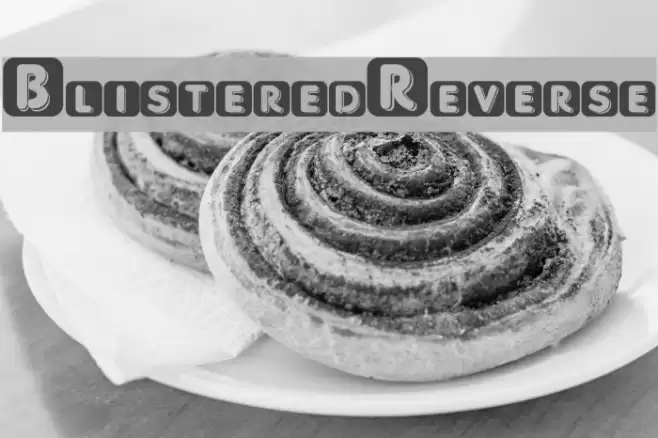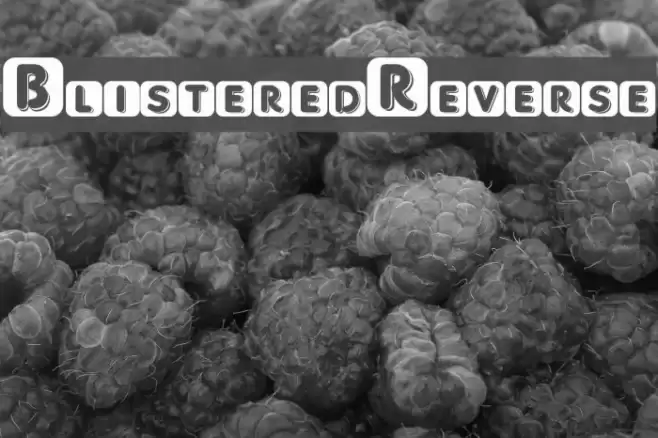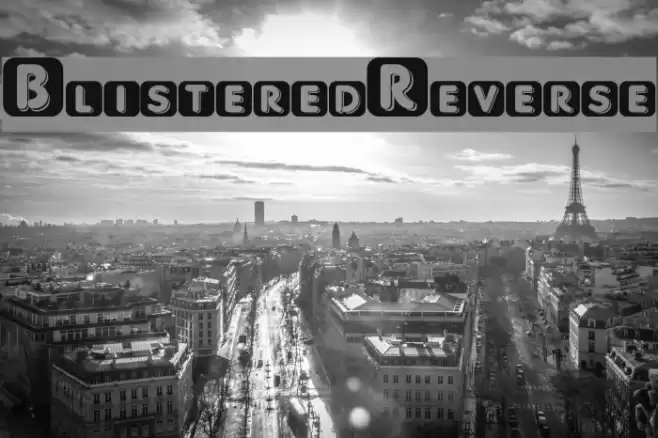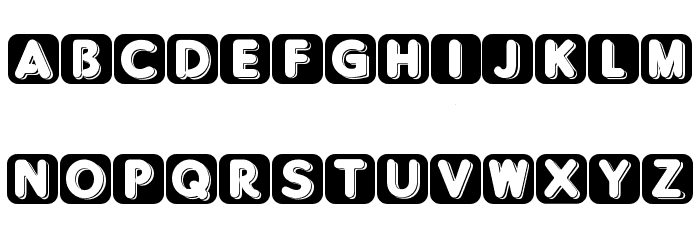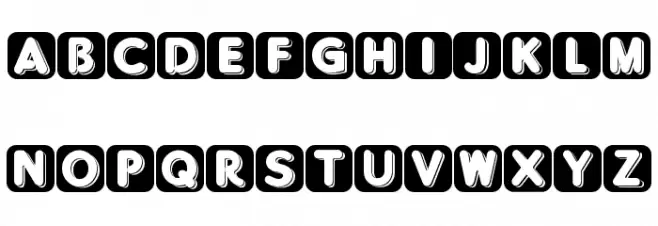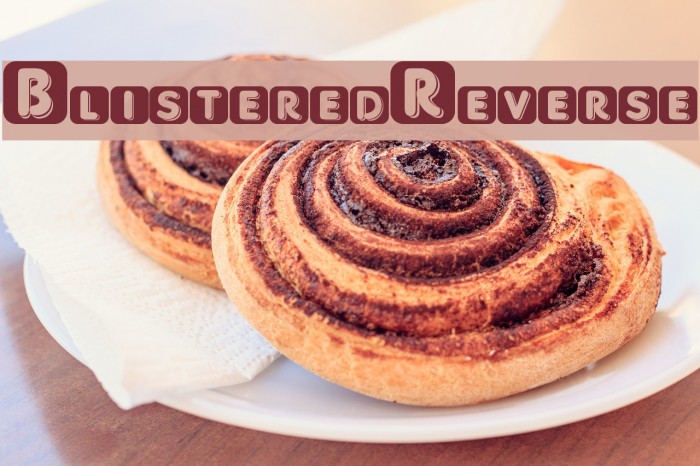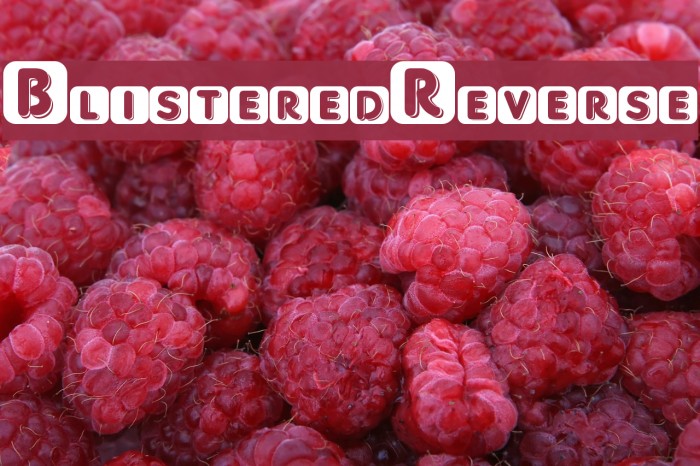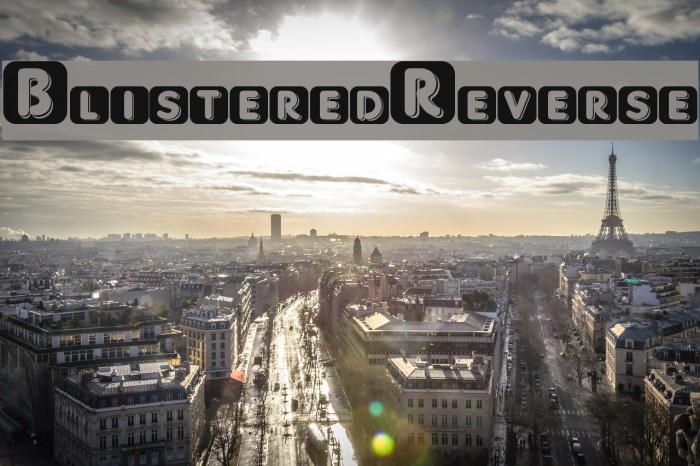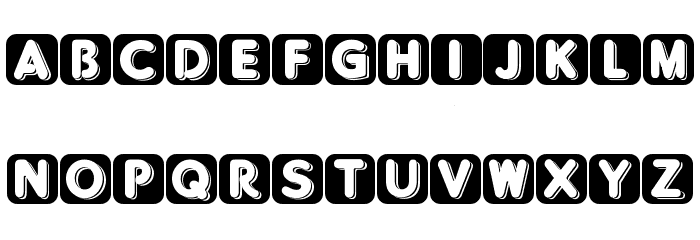
BlisteredReverse Font
This font features bold, uppercase letters encased in rounded square backgrounds, creating a striking and modern appearance. The letters themselves are white, contrasting sharply with the black background, enhancing readability and visual impact. Each character is uniformly sized, contributing to a cohesive and structured look. The font's design is playful yet professional, making it suitable for a variety of creative projects. Its distinct style is both eye-catching and memorable, ideal for making a statement.
Bold, uppercase letters in rounded squares with a modern, striking design from Uncategorized fonts.